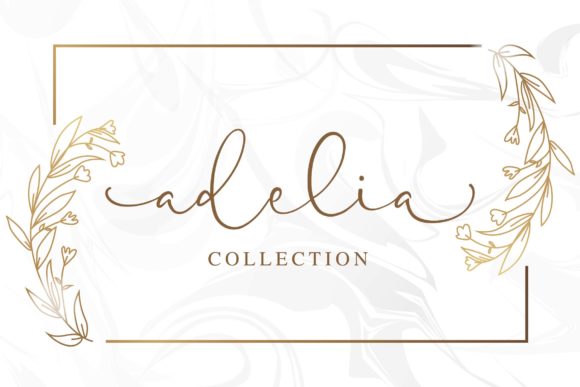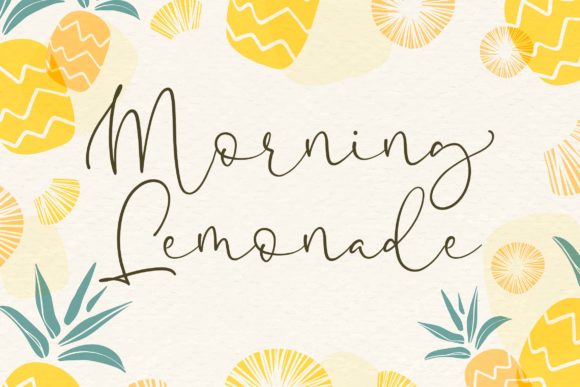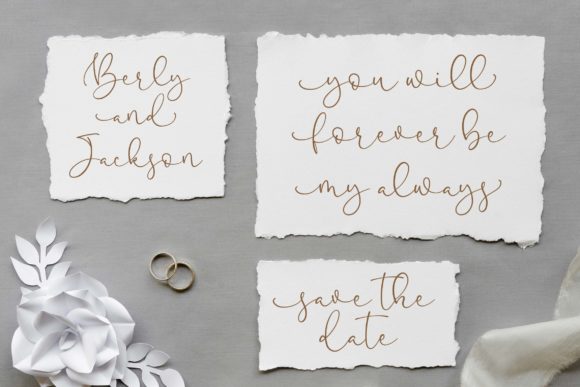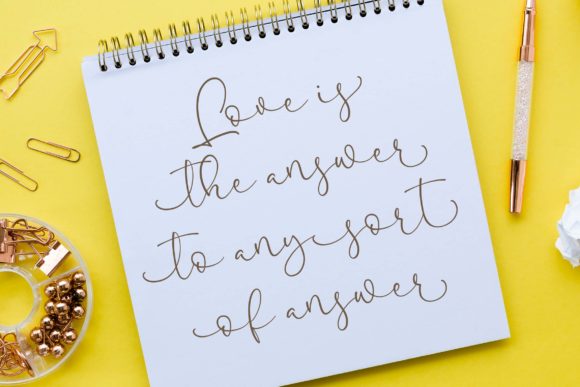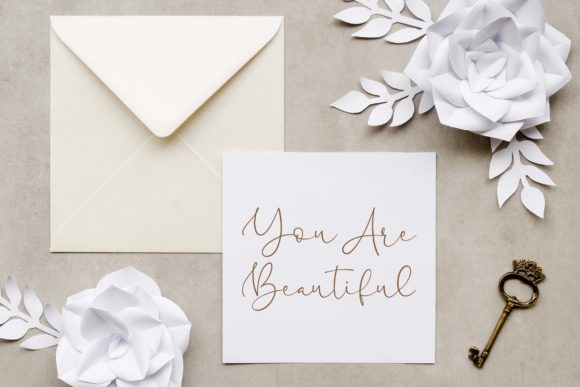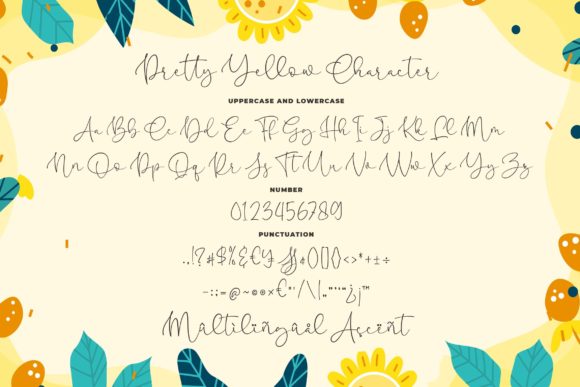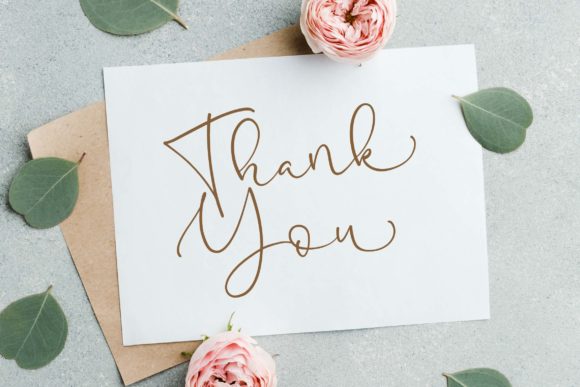
Pretty Yellow Font
About Pretty Yellow Font
Pretty Yellow is a beautiful, classy and relaxed handwritten font, which fits perfectly a variety of projects! It features a varying baseline, smooth lines, gorgeous glyphs and stunning alternates. Get inspired by its incredibly versatile style and use it to create gorgeous wedding invitations, beautiful stationary art, eye-catching social media posts, and much more!